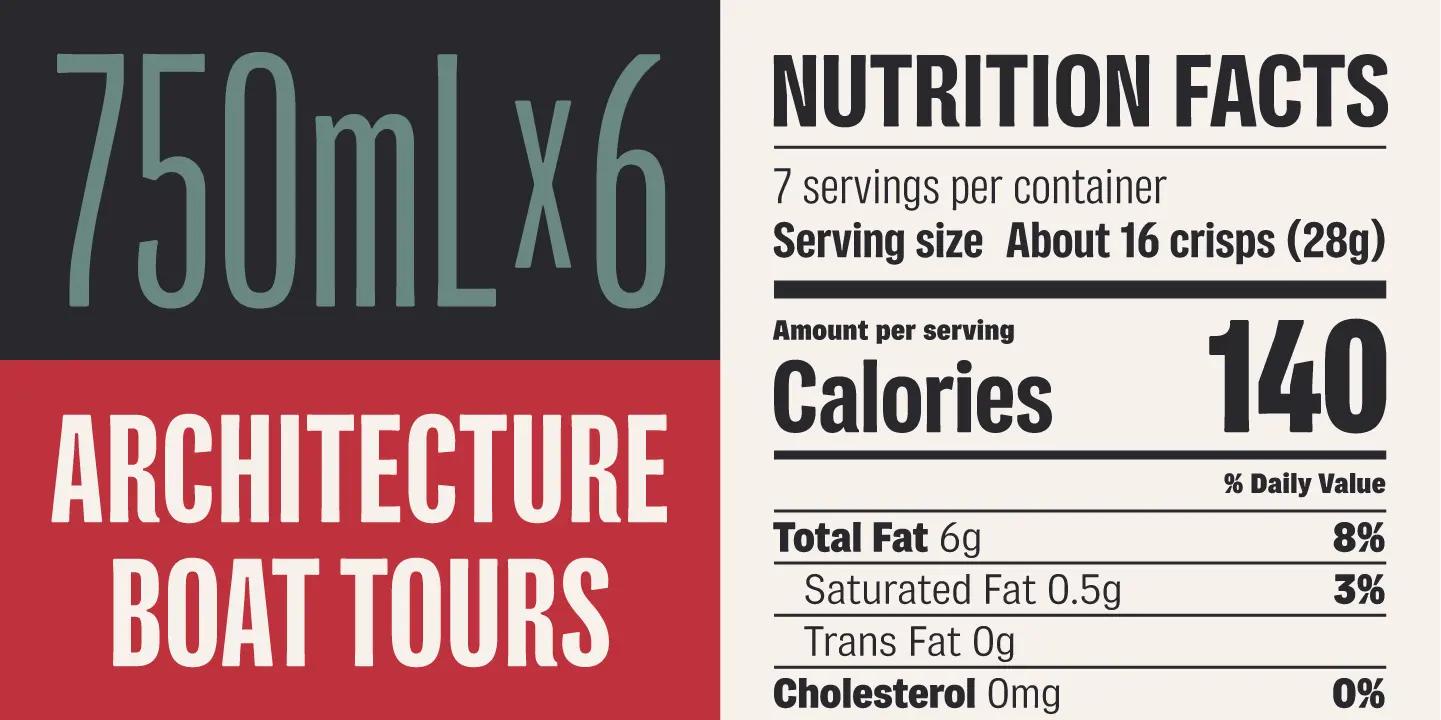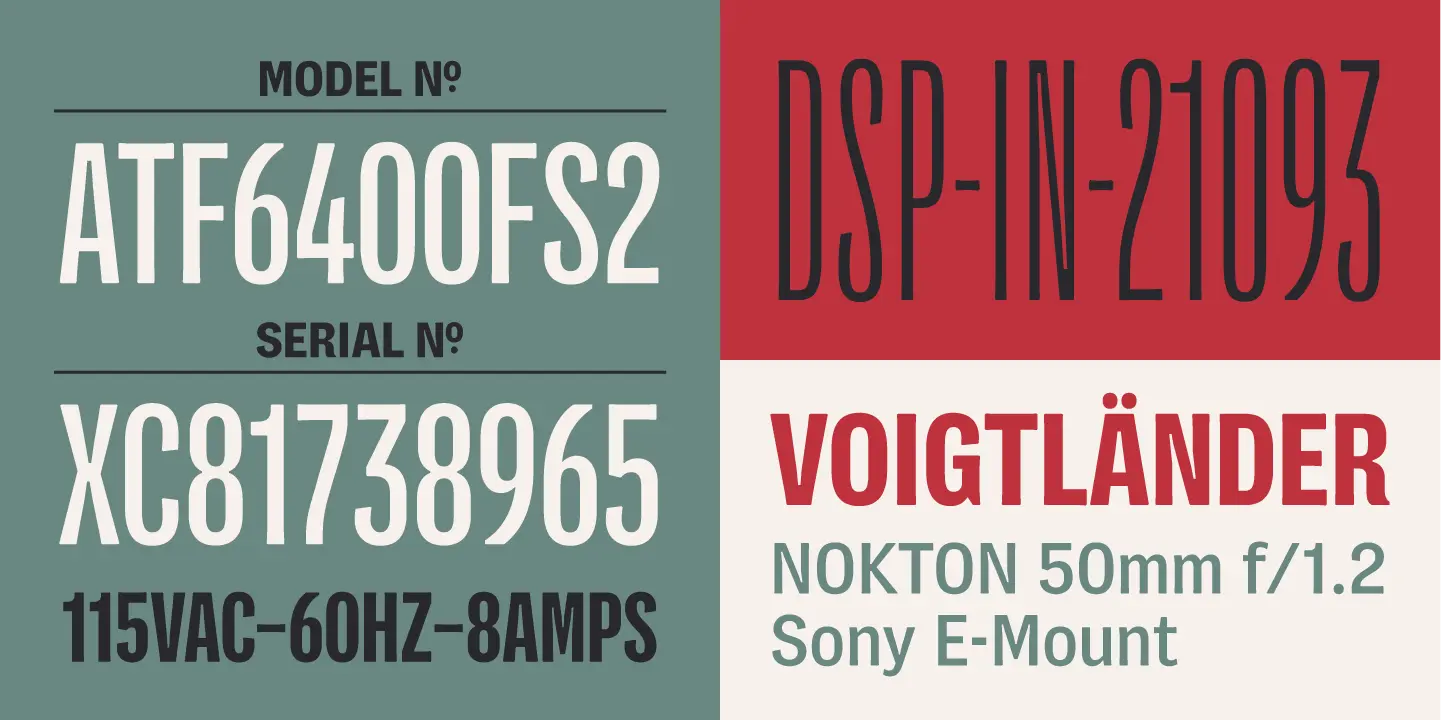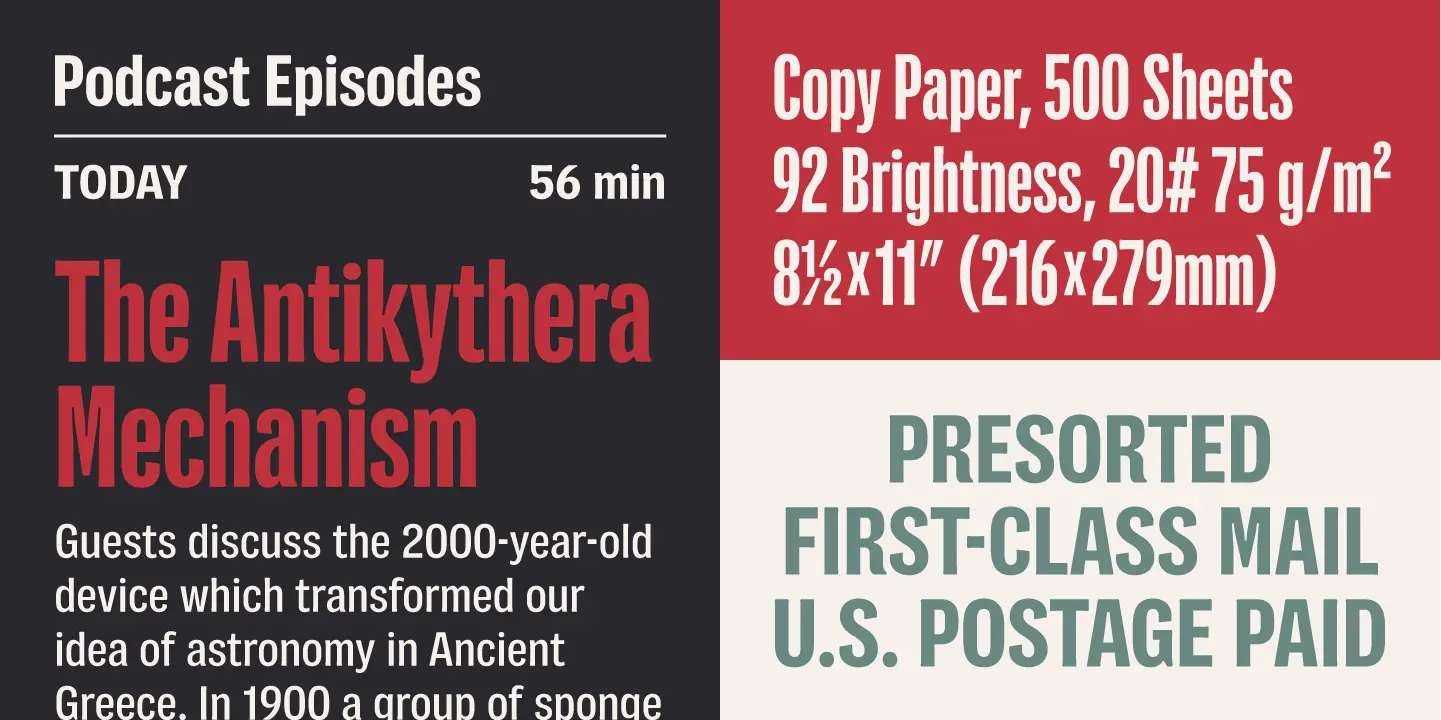
About Flexoplex
Flexoplex is a condensed sans serif inspired by early 20th-century narrow gothics and other industrial lettering. Originally developed to meet the spatial constraints of liquor labeling — where government warnings had to remain legible and registration numbers had to meet strict height requirements — Flexoplex balances vintage utility with contemporary precision. Used for display or text, its compact forms and mechanical tone lend vernacular flair to packaging, editorial design, websites, and film posters.
OpenType Features
• Common Ligatures
• Fractions
• Ordinal Numerals
• Proportional Numerals
• Subscript
• Superscript
• Tabular Numerals